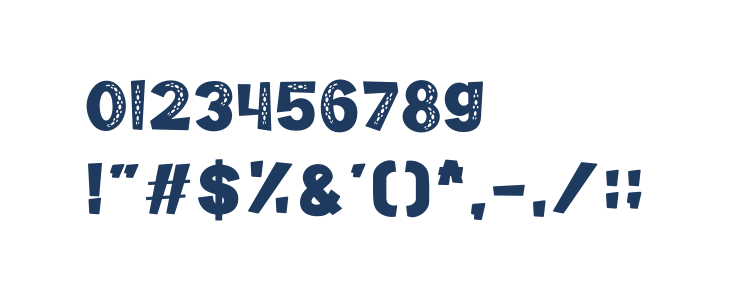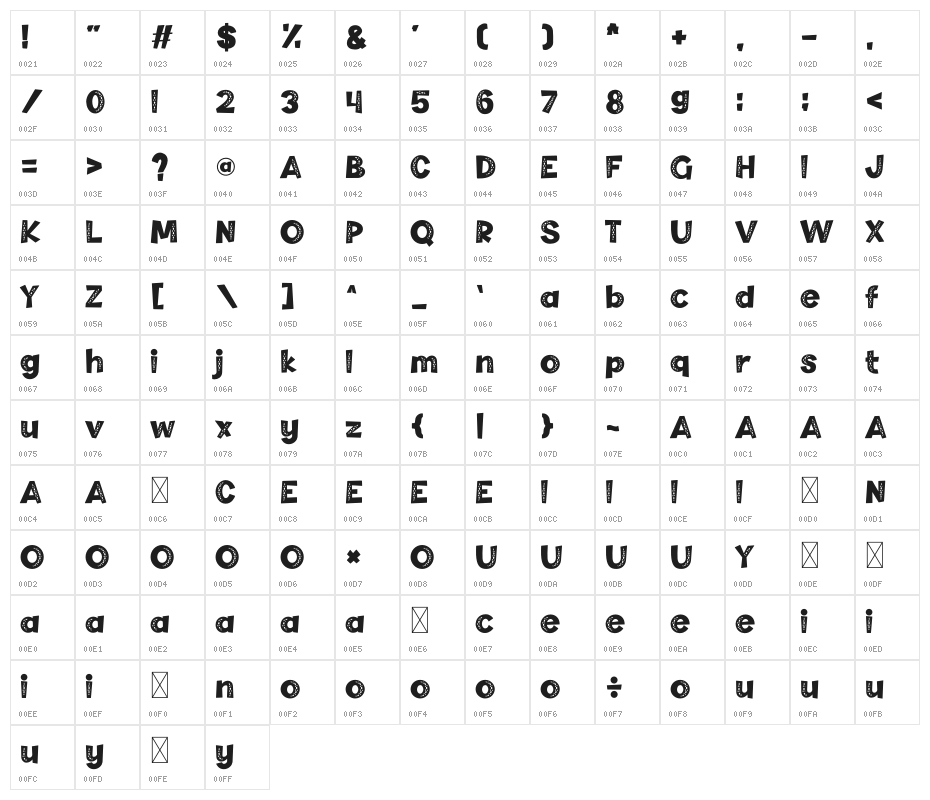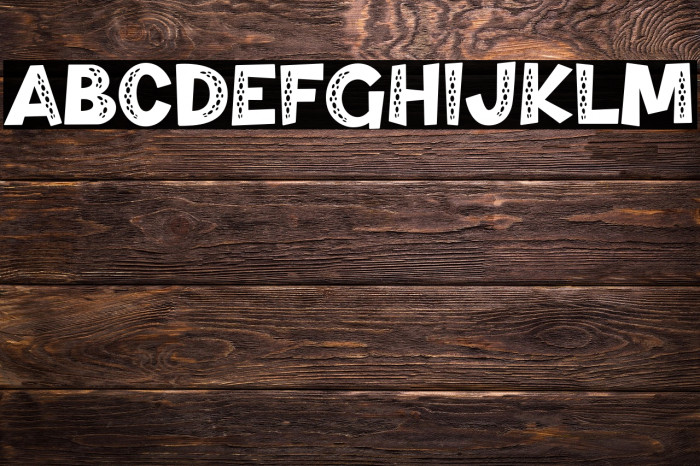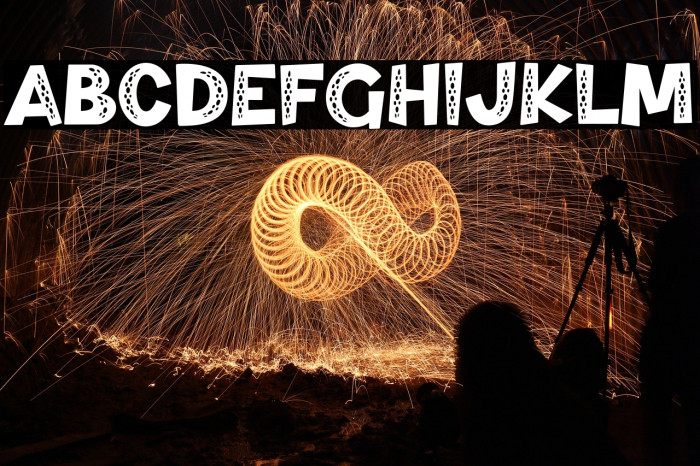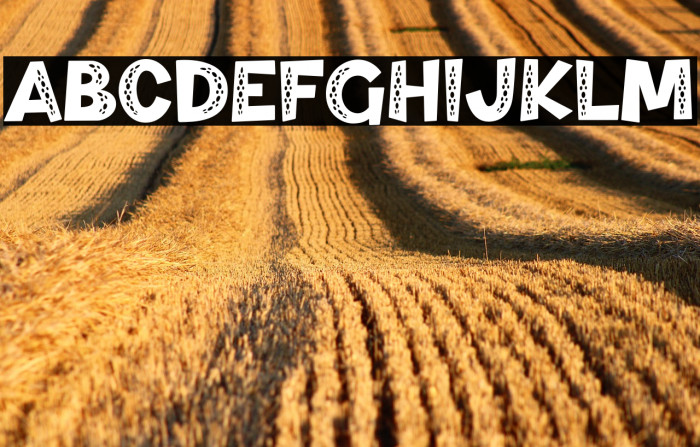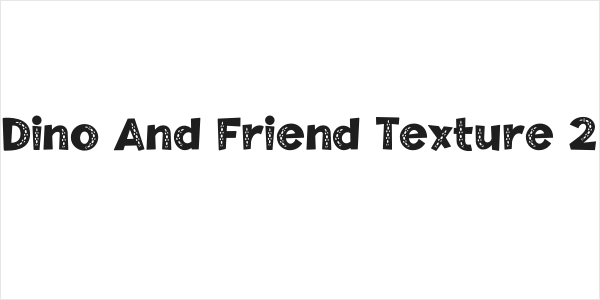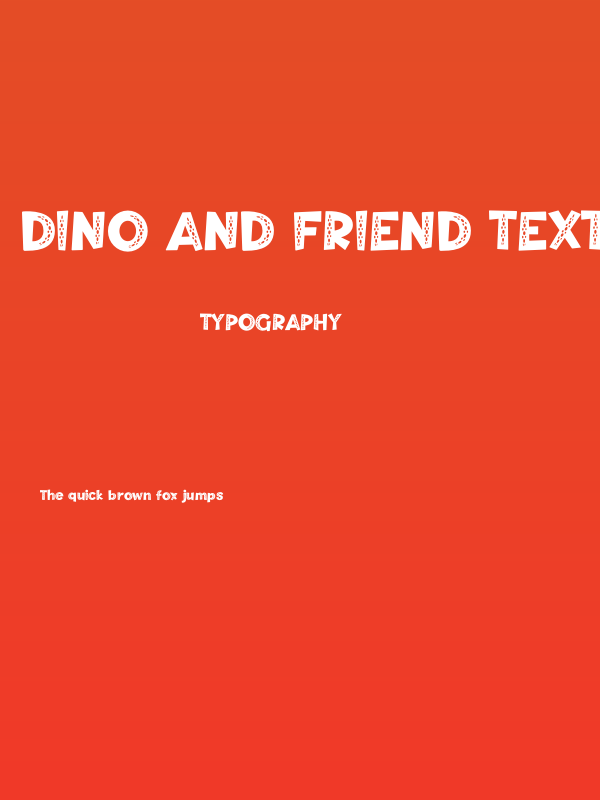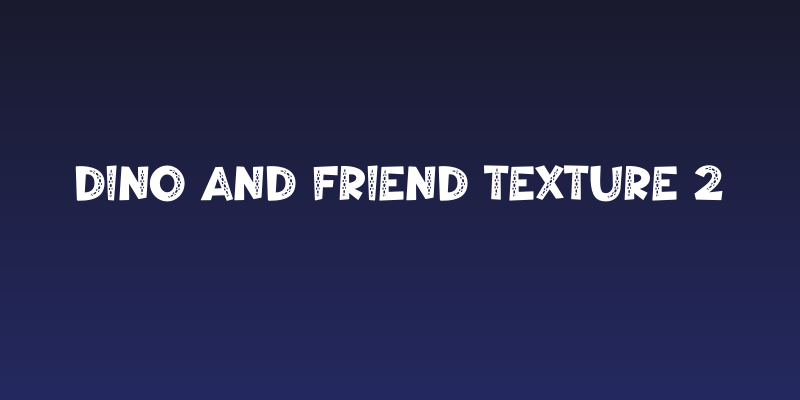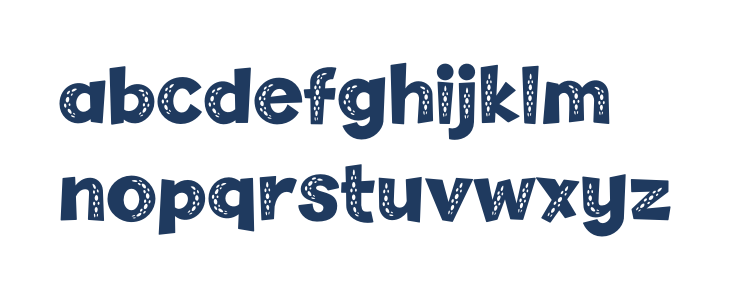
Dino And Friend Texture 2 Font
Dino And Friend Texture 2 Description
This playful and bold font features a unique texture within each character, adding a whimsical and fun element to its design. The letters are thick and rounded, with a decorative pattern that resembles a playful, childlike doodle. The uppercase and lowercase letters maintain a consistent style, with a slightly irregular shape that enhances its informal and friendly appearance. The numbers and special characters follow the same design principles, making the font versatile for various creative projects. Its bold presence and decorative elements make it ideal for eye-catching designs.